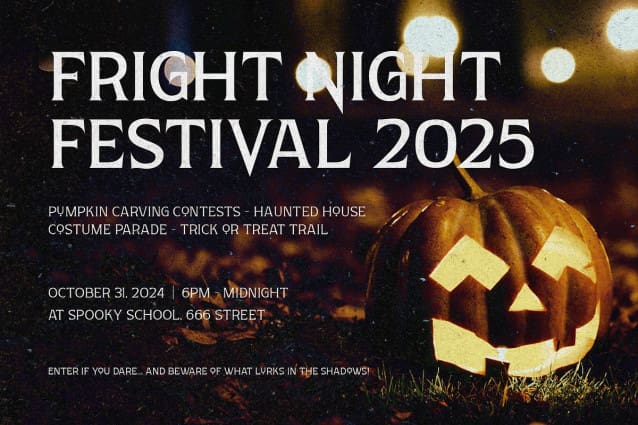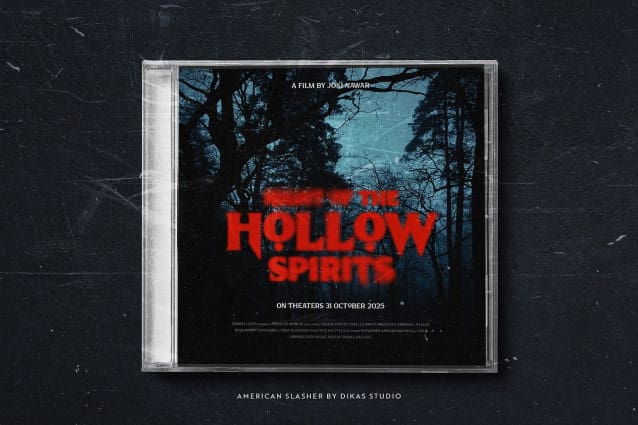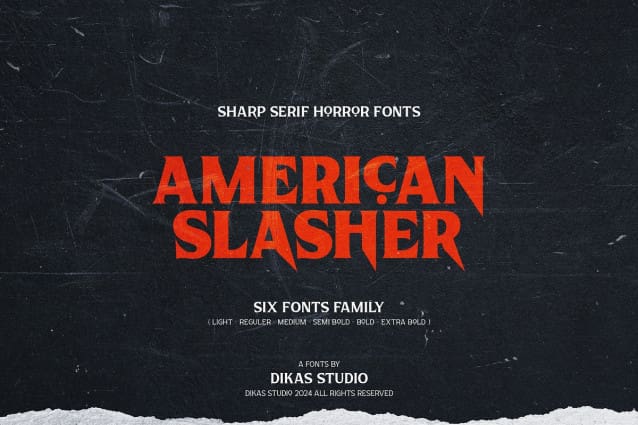
American Slasher Font Family
American Slasher Font Family is a sharp, serif typeface that comes in six versatile weights: extra bold, bold, semi bold, medium, regular, and light. With its edgy design, this font is perfect for creating eerie, spine-chilling designs with a Halloween or horror vibe. Whether you need something bold and striking or subtly haunting, American Slasher delivers the perfect tone for your spooky projects.